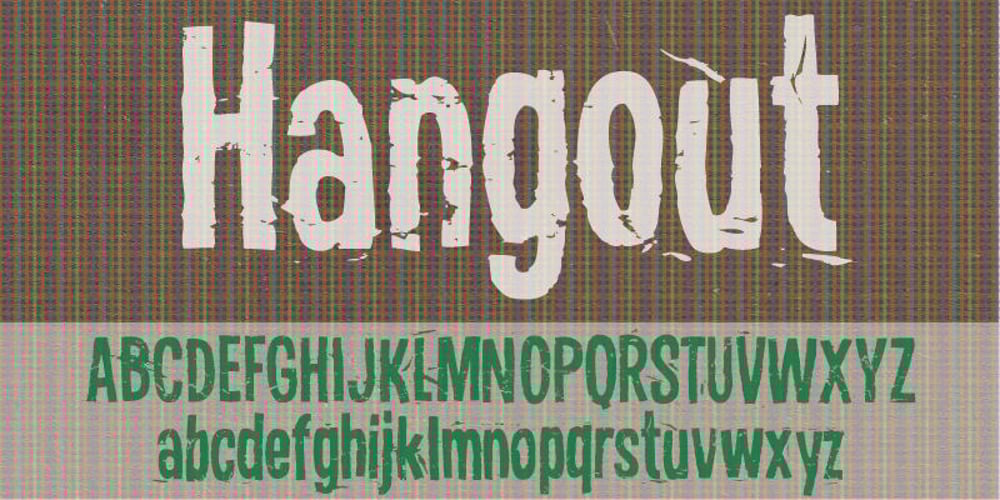
Hangout Font Family was designed by Jakob Fischer and published by PizzaDude.dk. Hangout contains 1 styles and family package options. Hangout has got a big mouthful of ligatures – including substitution for double letters and numbers – and on top of that, almost 200 substitutions for the most common letter combinations – almost 250 ligatures in total. Furthermore, Hangout also includes alternate version of lowercase letters! Take that and chew!!!